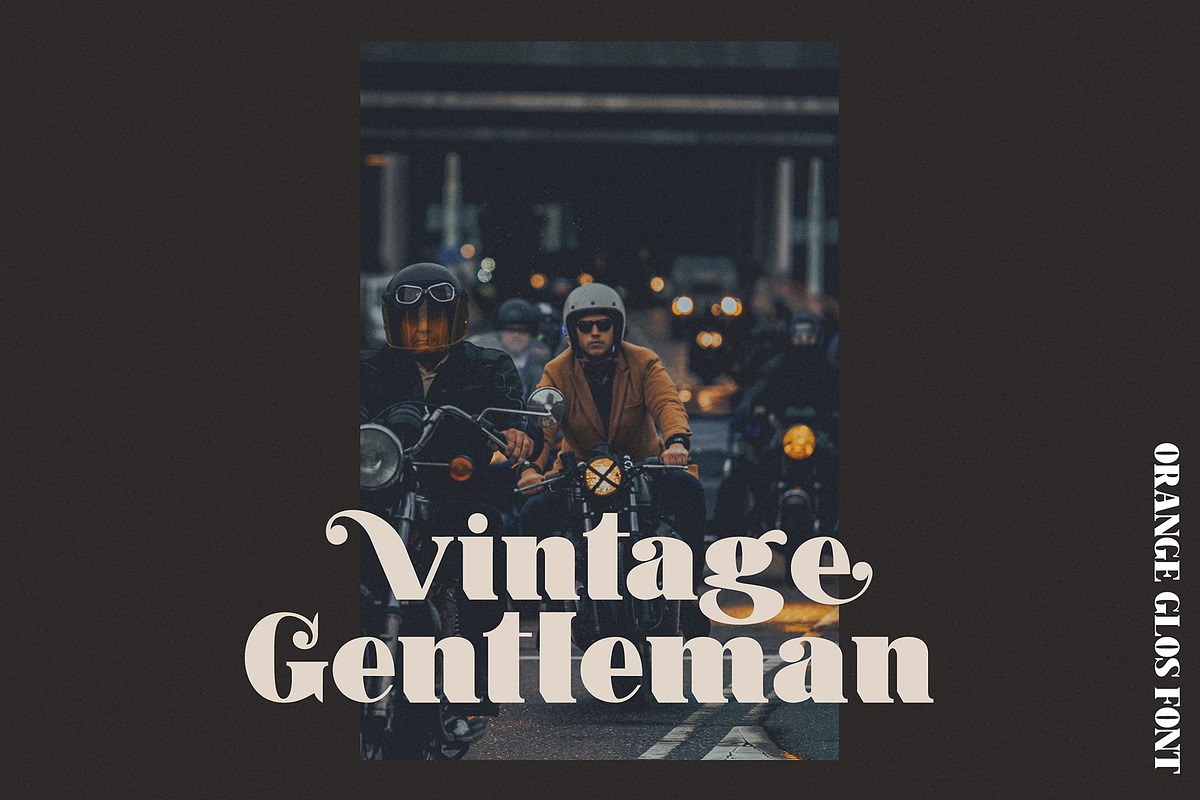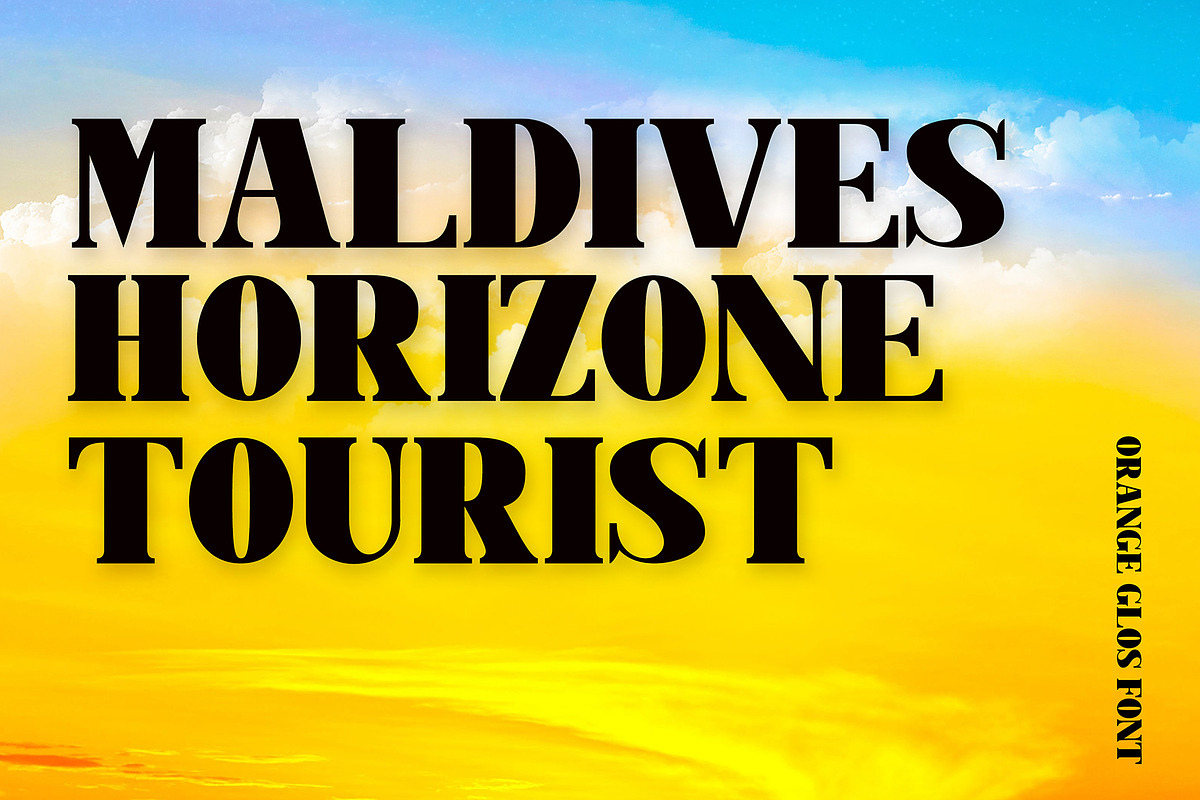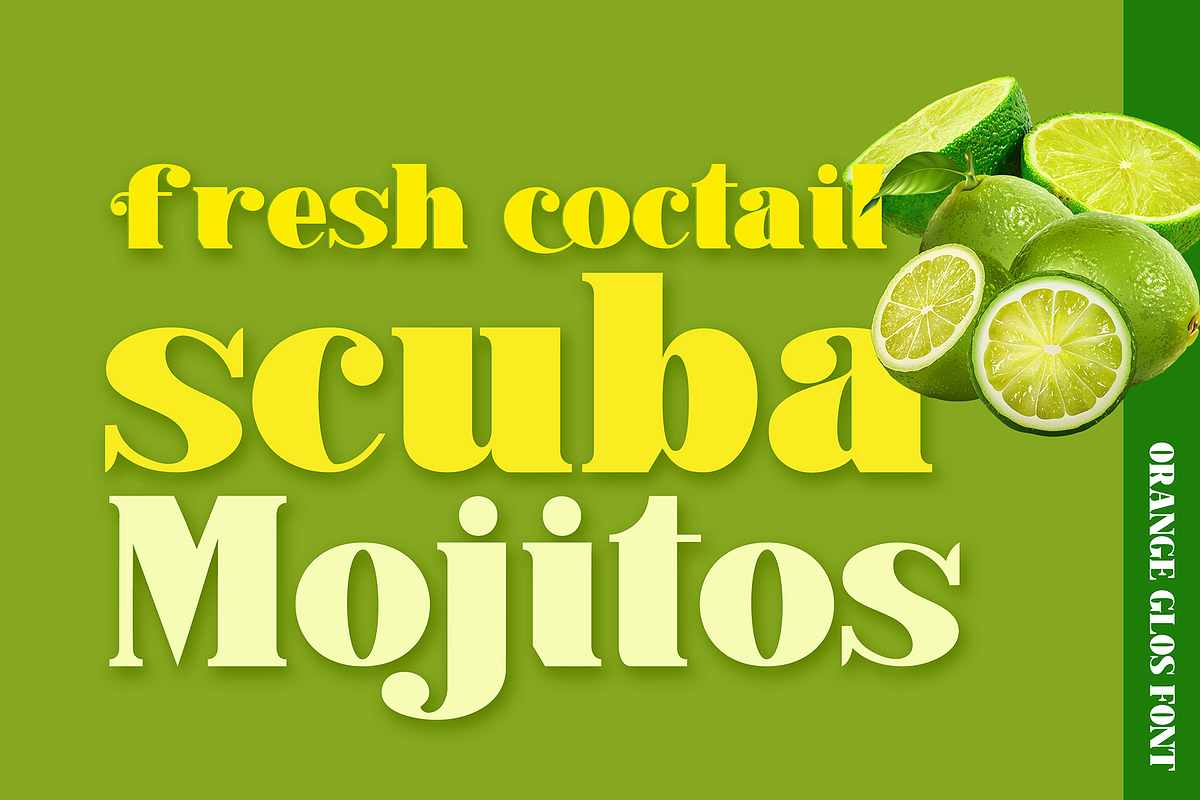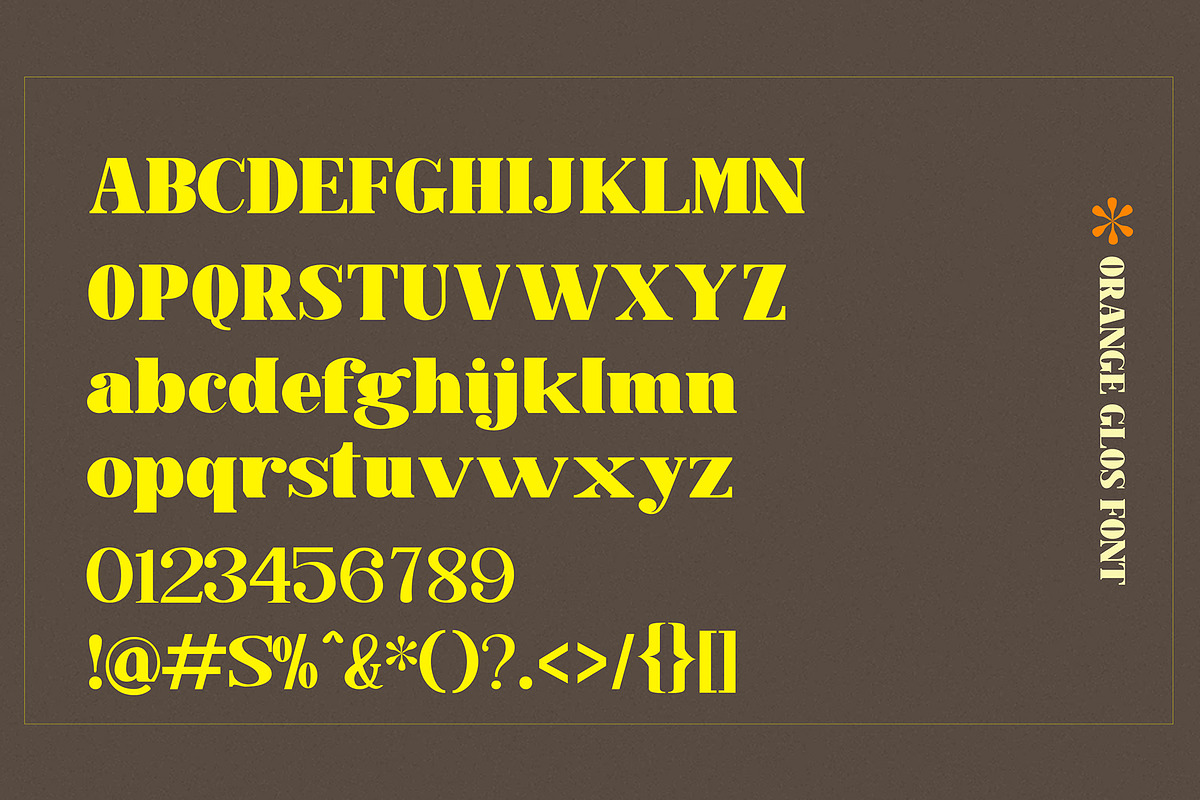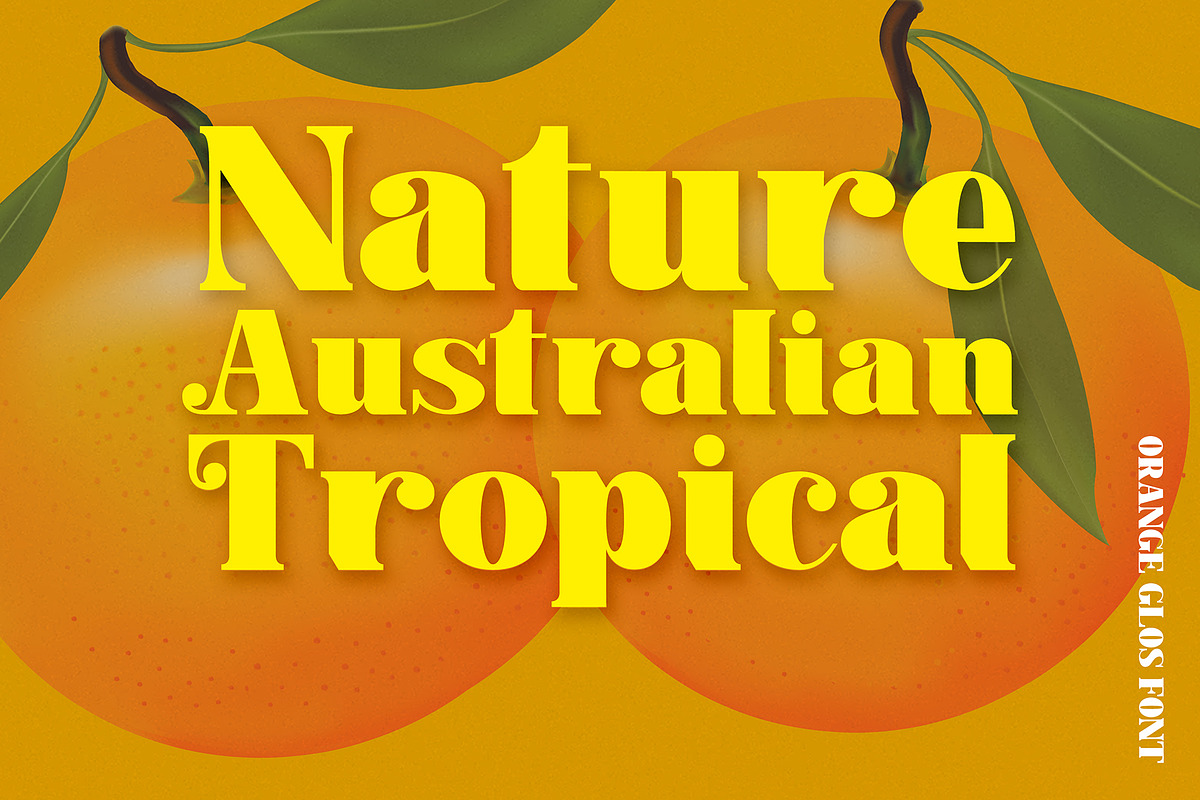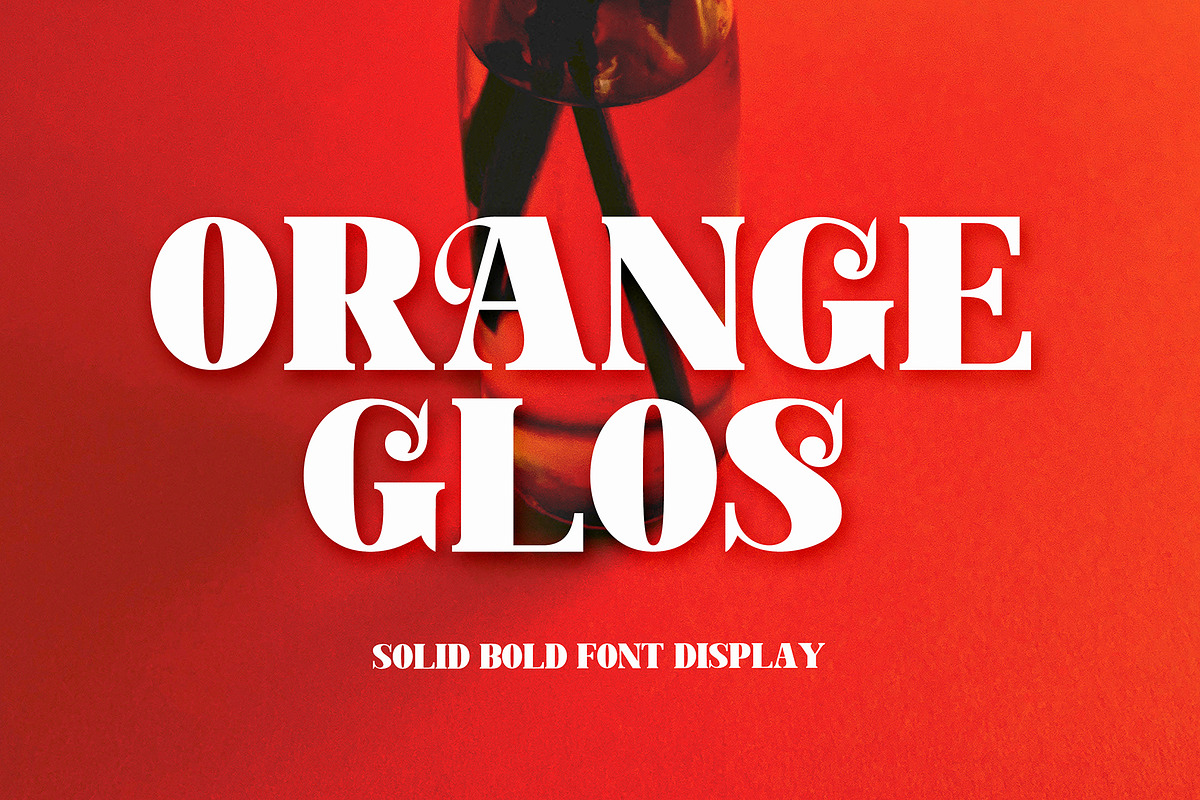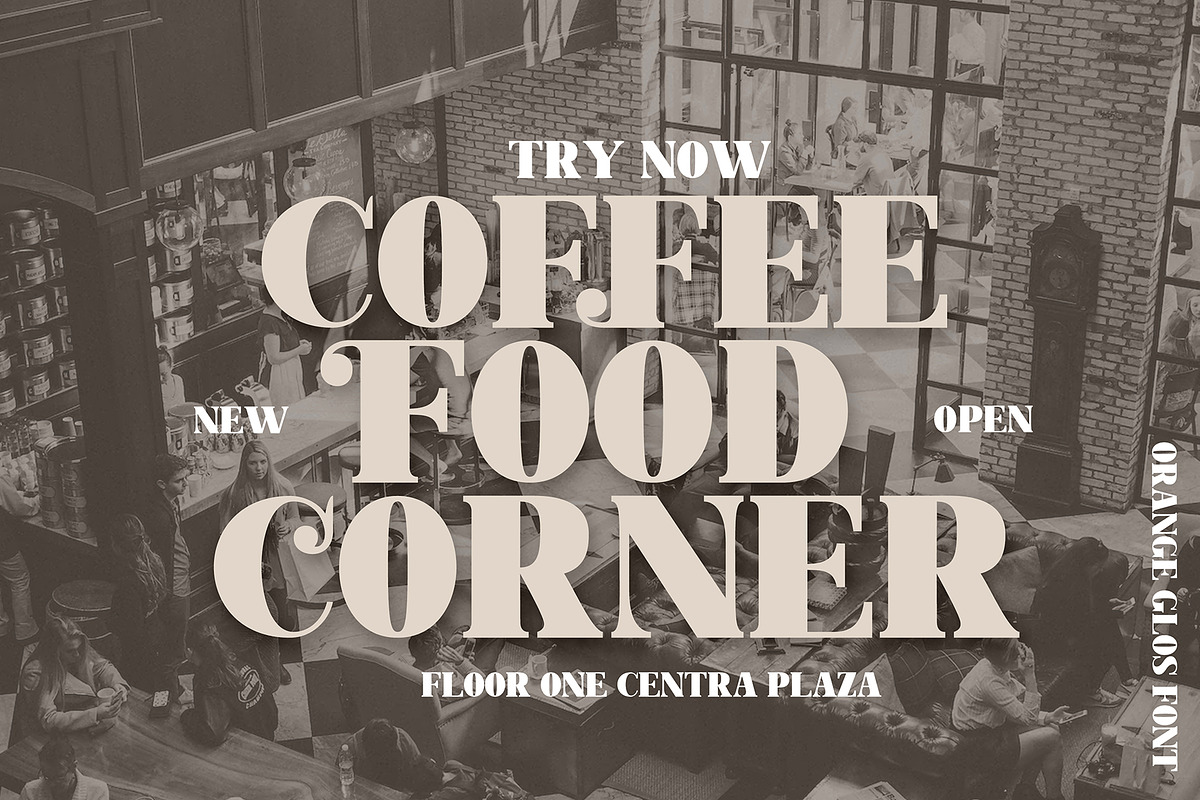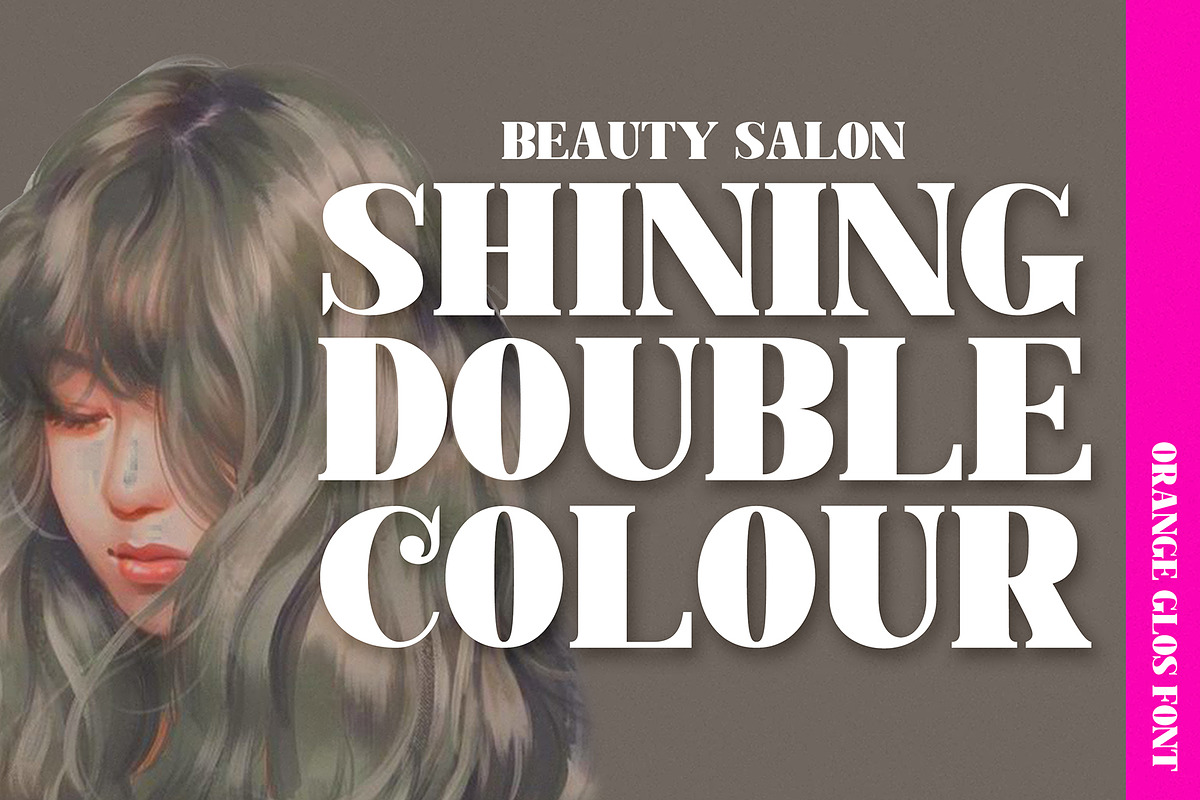
Orange Glos
Introducing Orange Glos - a bold classic serif with more hand-illustrated alternatives, and preserved textures, for a unique, yet modern vintage feel.
Each letterform has a slightly grainy exterior that works beautifully to enhance the conventional and soft details of the Orange Glos. This versatile display typeface has enough character for logos and branding, as well as headlines, apparel, bridal and more. Keep it classic, or decorate it with ornate alternatives to uppercase and lowercase glyphs!